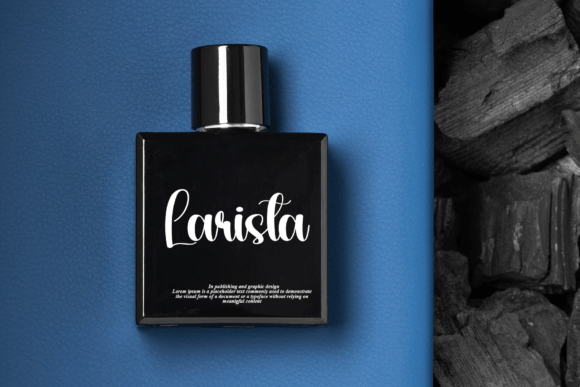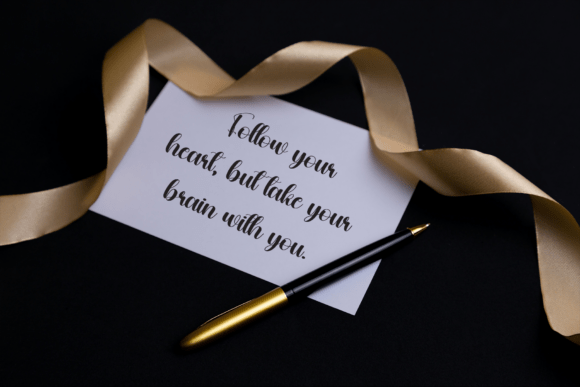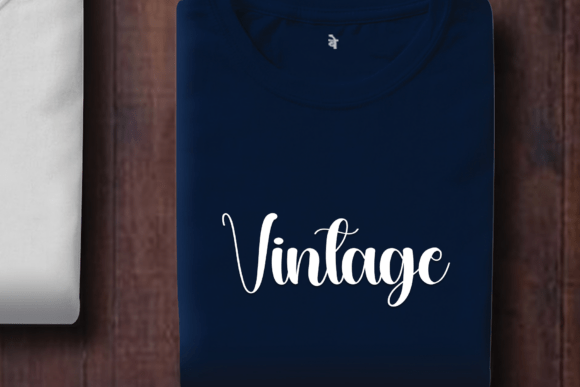
Introduction to Mistery Pumpkin Font
Have you ever stared at a blank canvas, waiting for the perfect spark to ignite your creative project? It’s that moment of pure inspiration, where the world comes alive and your imagination runs wild. For designers, this feeling is what drives us to create something truly remarkable. And, for those seeking to add a touch of elegance and sophistication to their designs, the Mistery Pumpkin Font is a game-changer.
This stylish script font is more than just a design resource – it’s a key to unlocking the perfect visual narrative for your project. With its fluid brush strokes, dynamic curves, and expressive letterforms, the Mistery Pumpkin Font captures the essence of hand-painted calligraphy with a modern twist. Whether you’re working on a logo, invitation, or social media graphic, this font is sure to deliver both visual impact and versatility.
Key Features of Mistery Pumpkin Font
- Unique, high-quality design for creative projects, making it a valuable design resource.
- Includes a large character set, including uppercase and lowercase letters, numbers, and special characters.
- Designed at a high resolution (300 DPI) for crisp and clear display in various sizes and applications.
- Perfect for use in various creative projects, including graphic design, digital art, and print media.
Honest Review: Mistery Pumpkin Font
I recently came across the Mistery Pumpkin Font and was immediately drawn to its unique aesthetic. This free download is a great addition to any design resource collection, perfect for creative projects that require a touch of whimsy.
What works well with the Mistery Pumpkin Font is its versatility. ✨ You can use it for a variety of purposes, from branding and marketing materials to editorial and graphic design. The high quality of the font is evident in its crisp lines and subtle texture, making it a great choice for designers who want to add some depth to their work.
- Features a transparent background, allowing for easy overlay and manipulation
One limitation of the Mistery Pumpkin Font is its limited character set. ⚠️ While it’s still a great choice for many projects, it may not be suitable for those that require a wide range of characters.
Overall, I’m impressed with the Mistery Pumpkin Font and think it’s a great addition to any designer’s toolkit. Its unique aesthetic and versatility make it a great choice for a wide range of creative projects.
Design Resource for Creative Projects
The Mistery Pumpkin Font is a unique and eye-catching design resource perfect for adding a touch of whimsy to your creative projects. With a transparent background, this high-quality font is easy to use and customize.
The Mistery Pumpkin Font is perfect for a variety of design projects, including:
- Halloween-themed designs and invitations.
- Spooky and whimsical illustrations.
- Playful and creative branding and marketing materials.